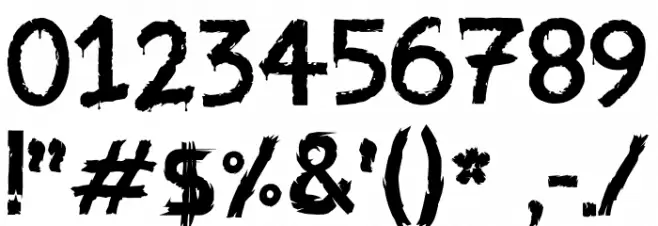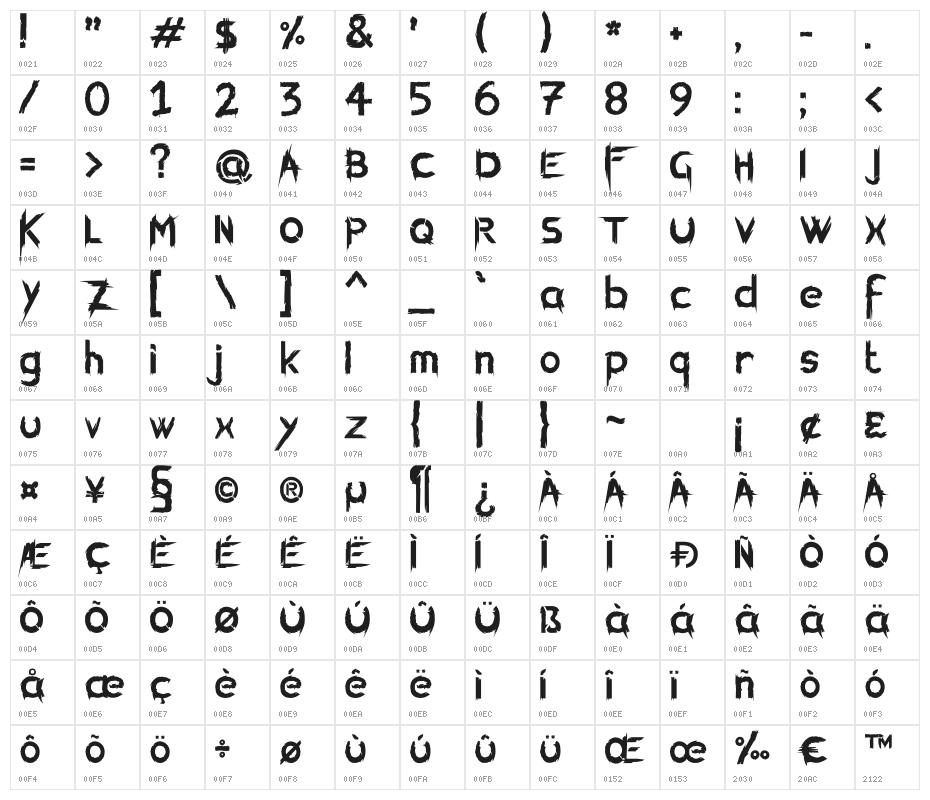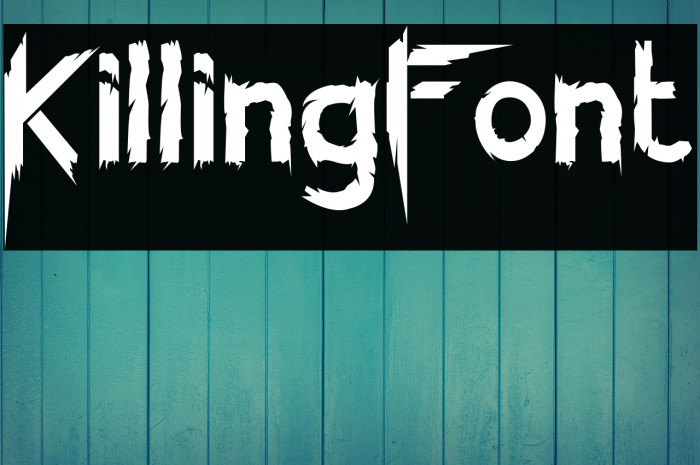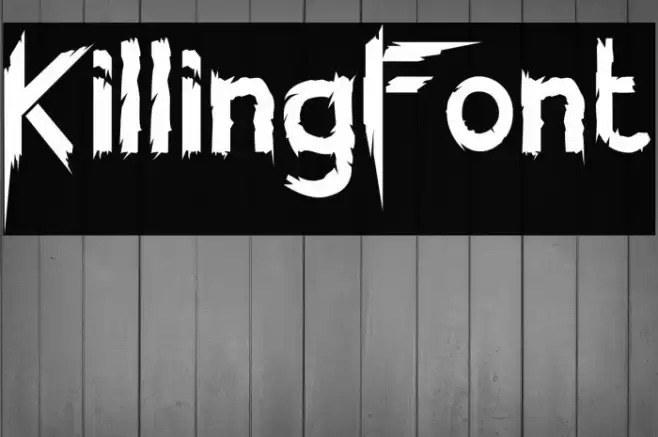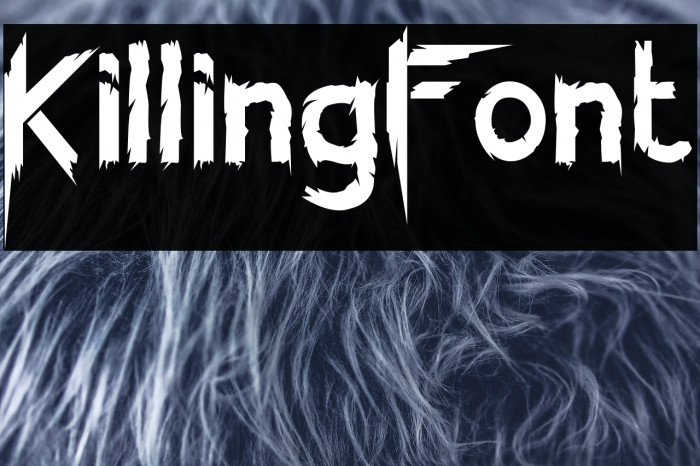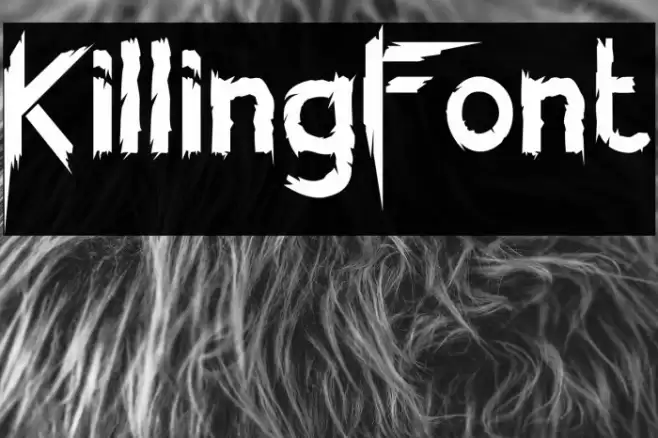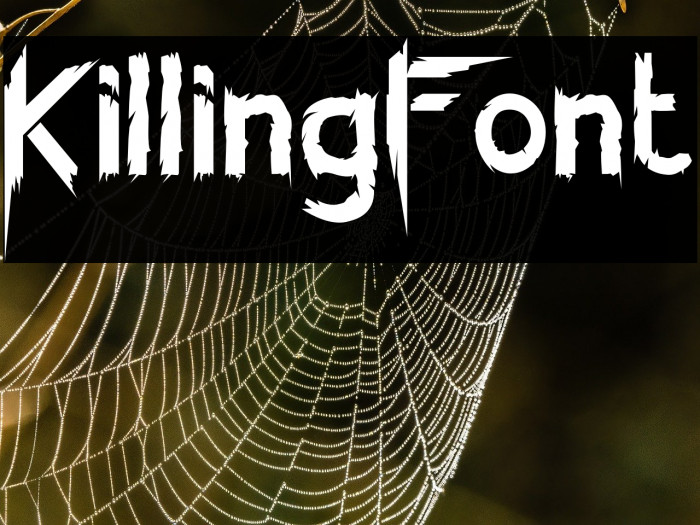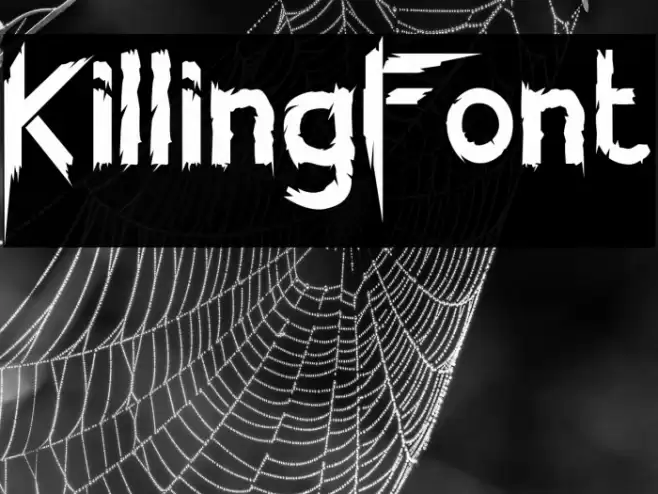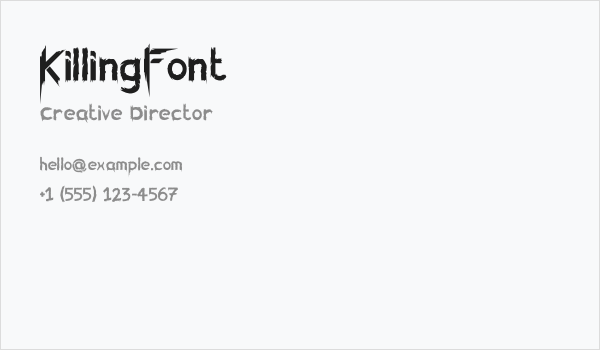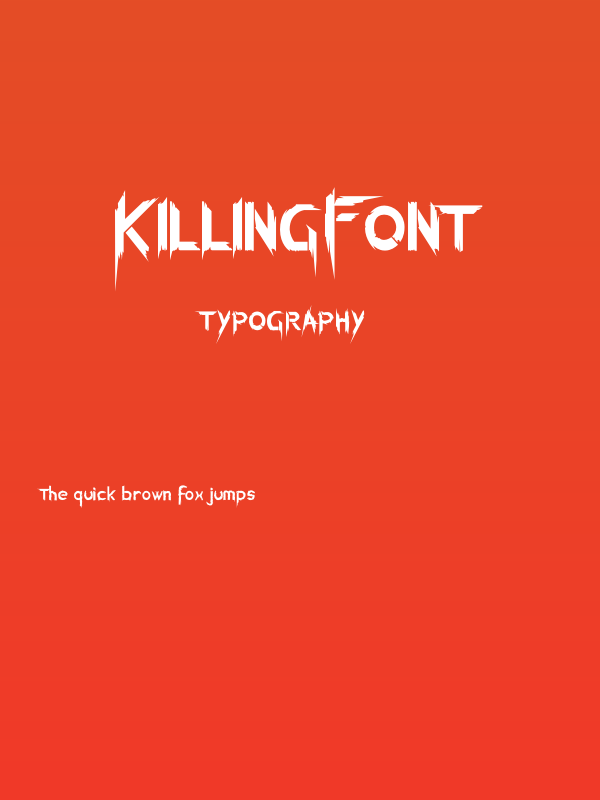
KillingFont Font
KillingFont Description
This font features a jagged, distressed style with sharp edges and irregular strokes, giving it a chaotic and edgy appearance. The uppercase and lowercase letters maintain a consistent rough texture, resembling torn or shredded paper. The numerals and special characters follow the same aesthetic, ensuring uniformity across all glyphs. The font's aggressive and bold design makes it stand out, ideal for projects that require a dramatic and intense visual impact. Its unique style captures attention and conveys a sense of urgency or danger.
| Proposed Projects | Ideal for horror-themed posters, edgy album covers, video game titles, or Halloween event flyers. |